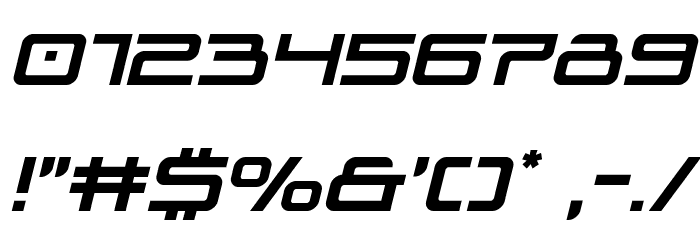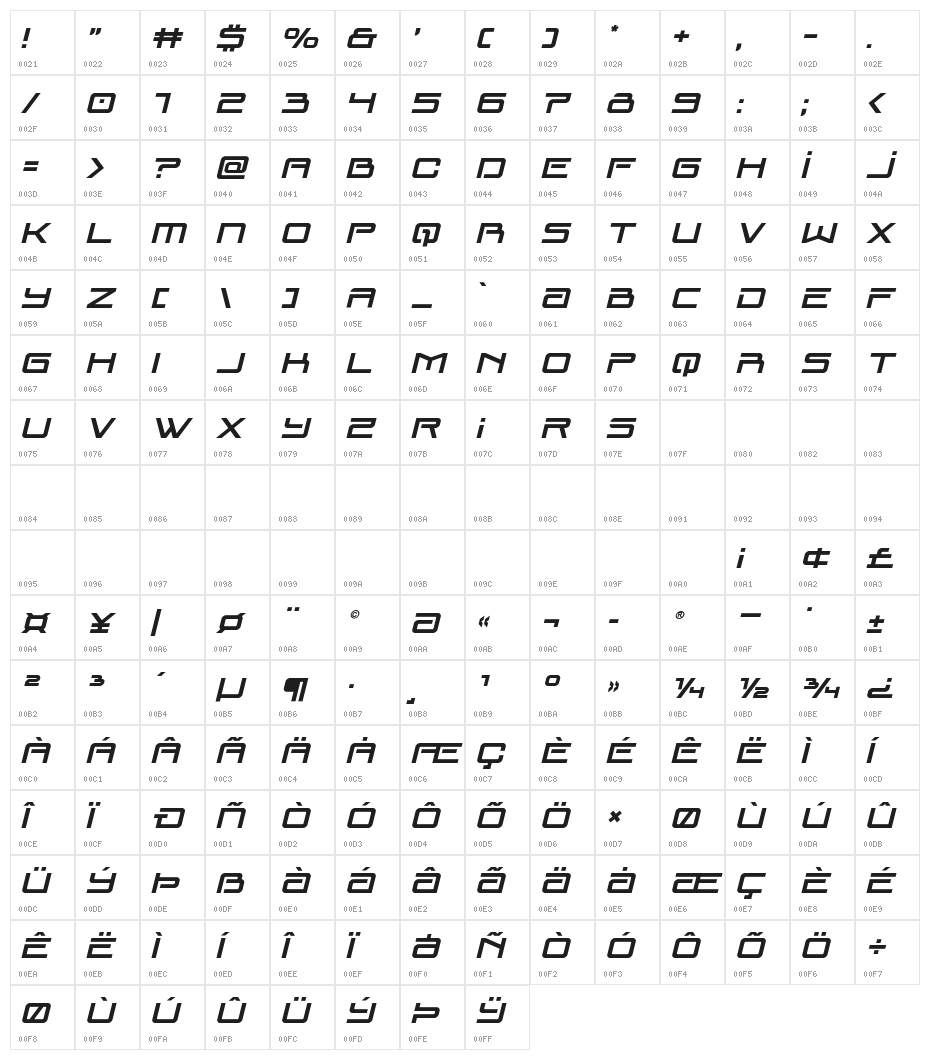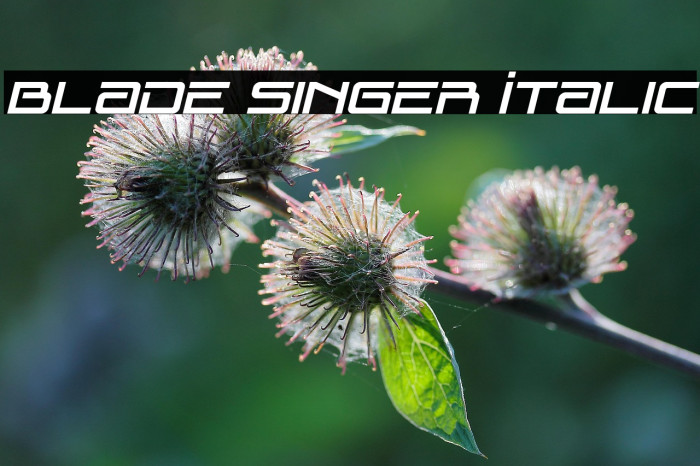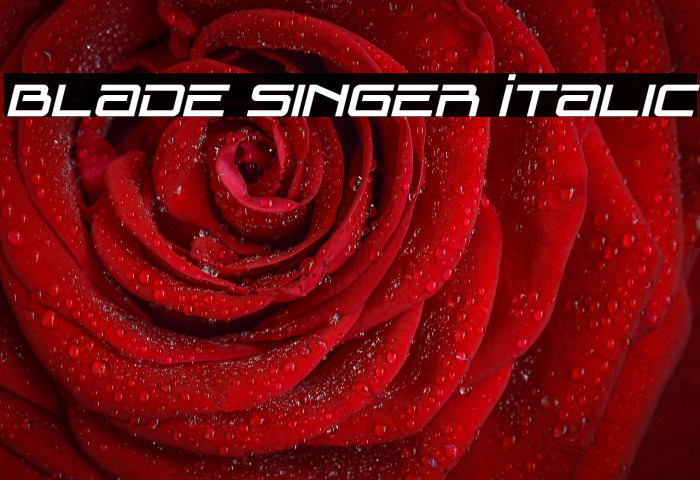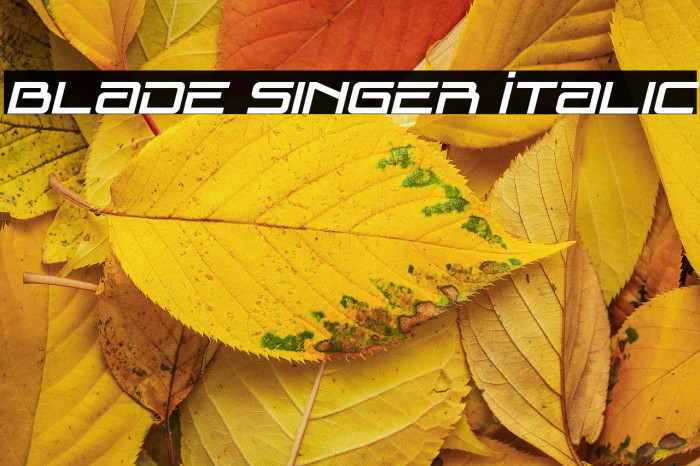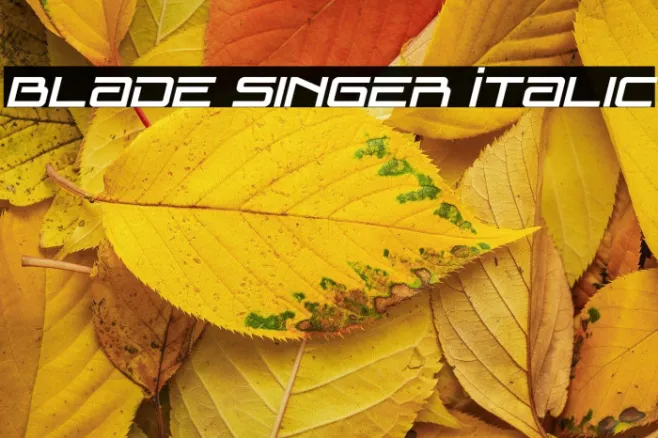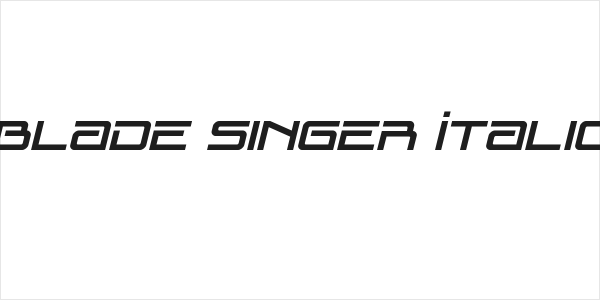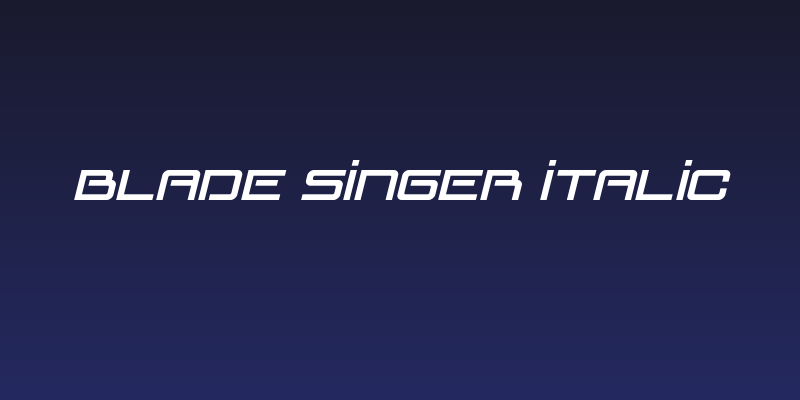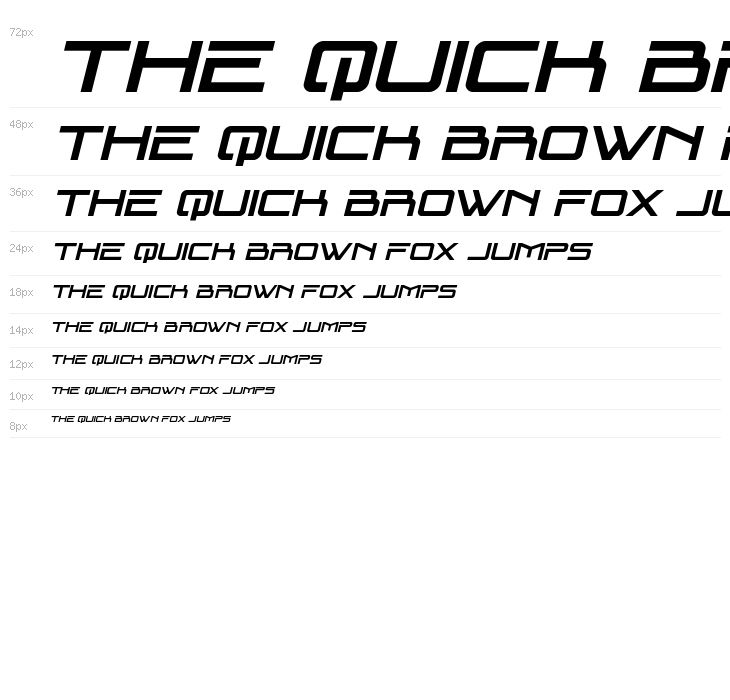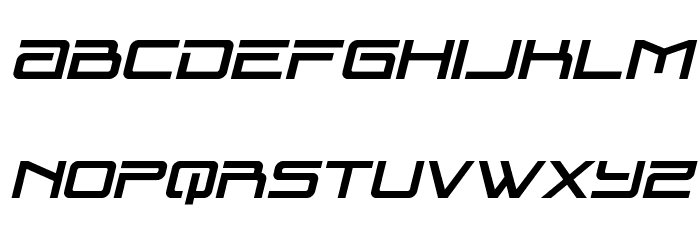
Blade Singer Italic Font
Blade Singer Italic Description
This font features a sleek, modern design with a futuristic flair. The characters are italicized, giving a sense of motion and dynamism. The strokes are uniform in thickness, providing a clean and consistent appearance. The angular design of the letters adds a sharp, edgy look, making it suitable for contemporary projects. The spacing between characters is normal, ensuring readability while maintaining its stylish aesthetic. This font is ideal for projects that require a modern and innovative touch.
| Proposed Projects | Ideal for technology branding, sci-fi themed designs, modern advertising, and innovative product packaging. |